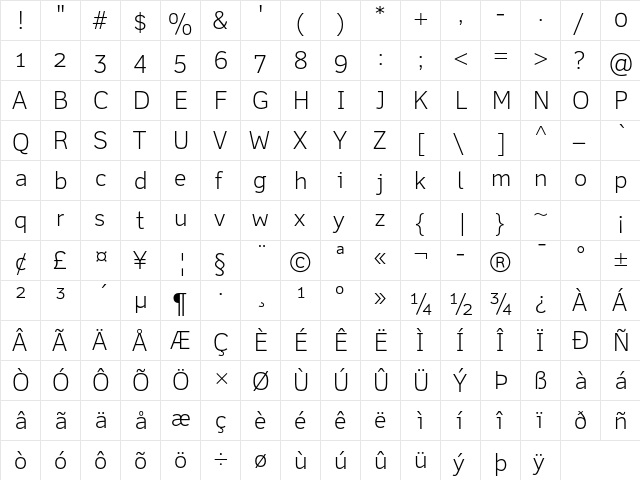
Felbridge Std Light Font Preview
Felbridge Std Light
Design Context for Felbridge Std Typeface
Felbridge Std is a composed and adaptable typeface that performs quietly and consistently across a wide range of design contexts. Its slender proportions lend an understated elegance to any composition.